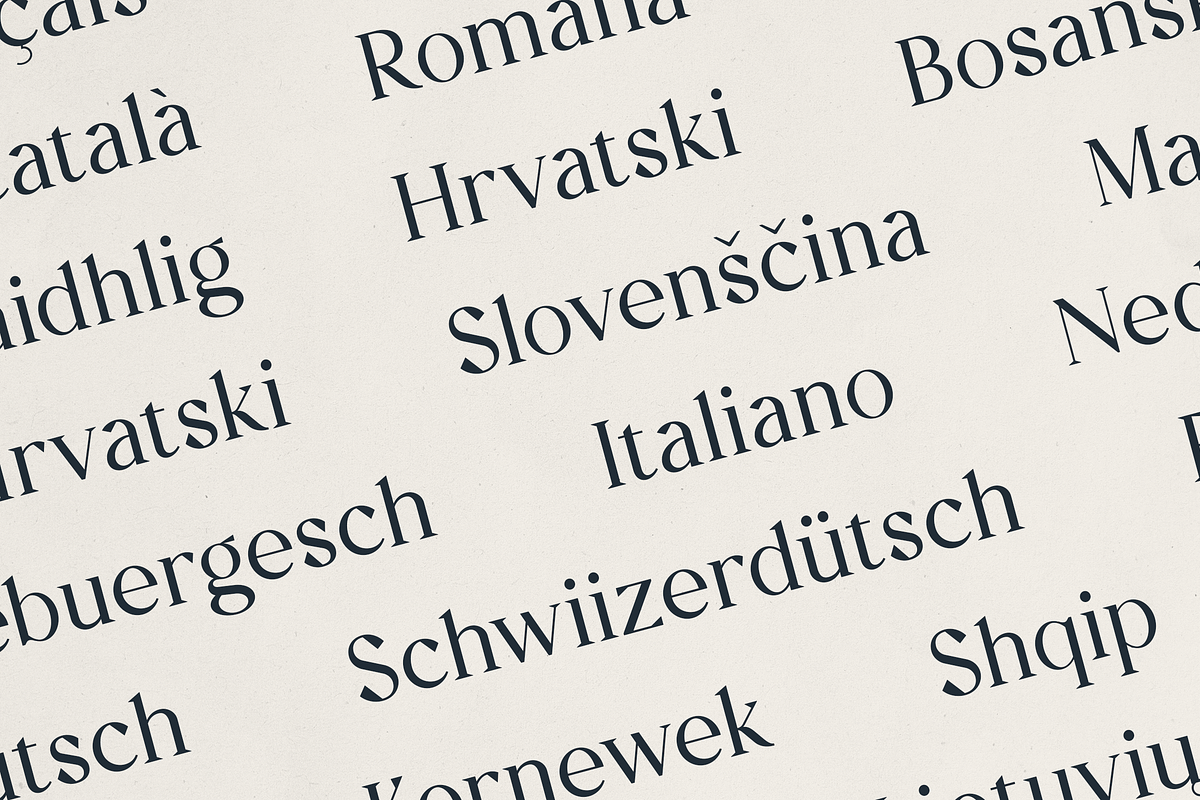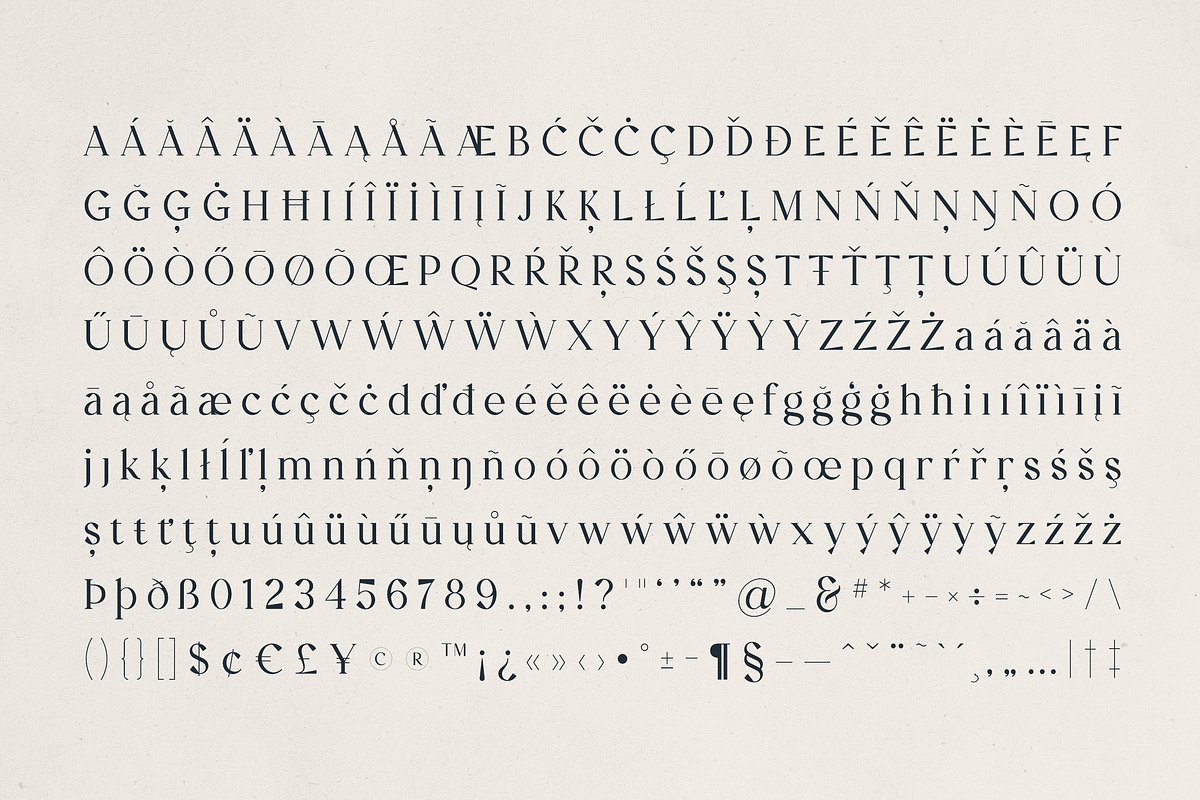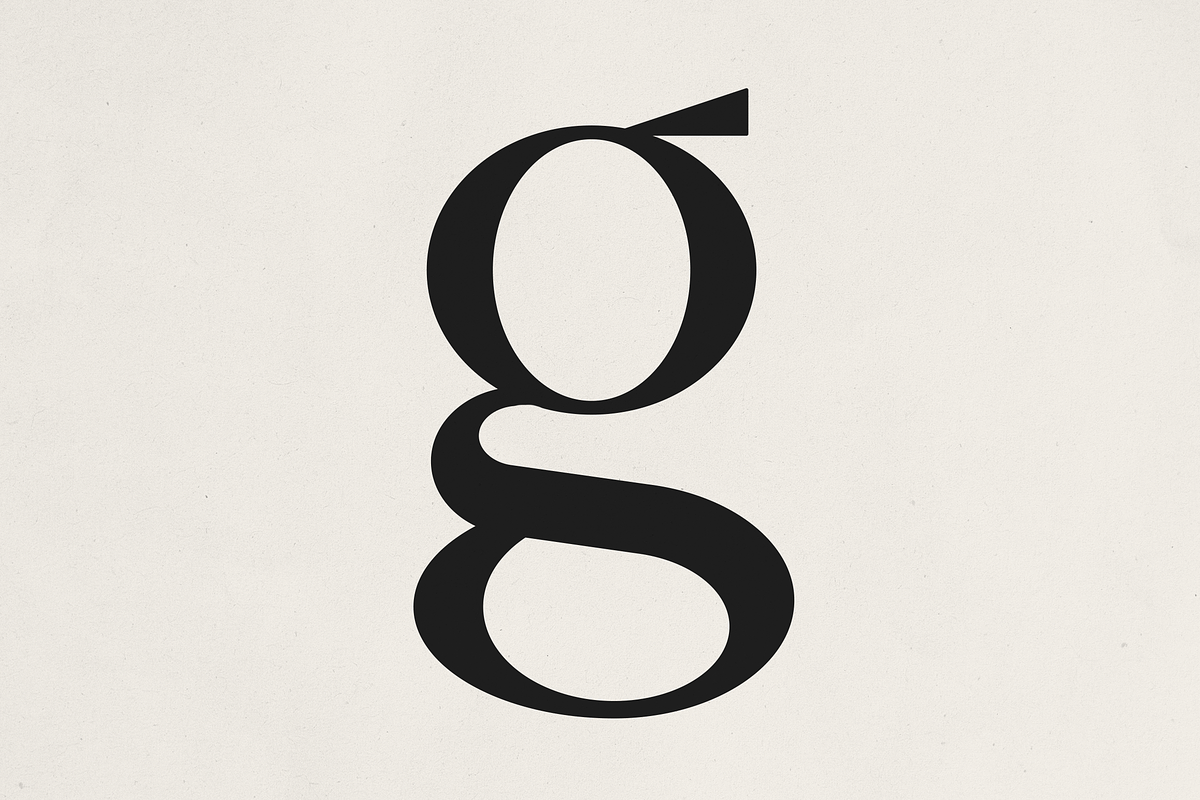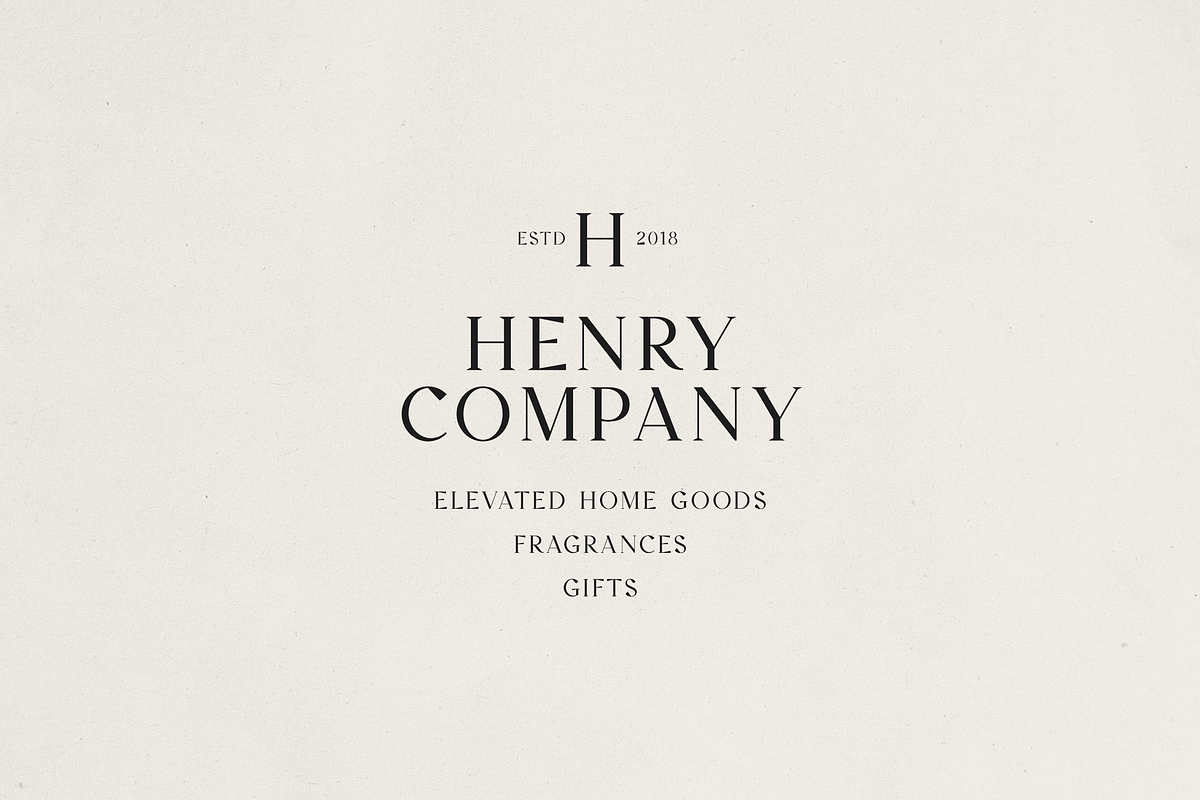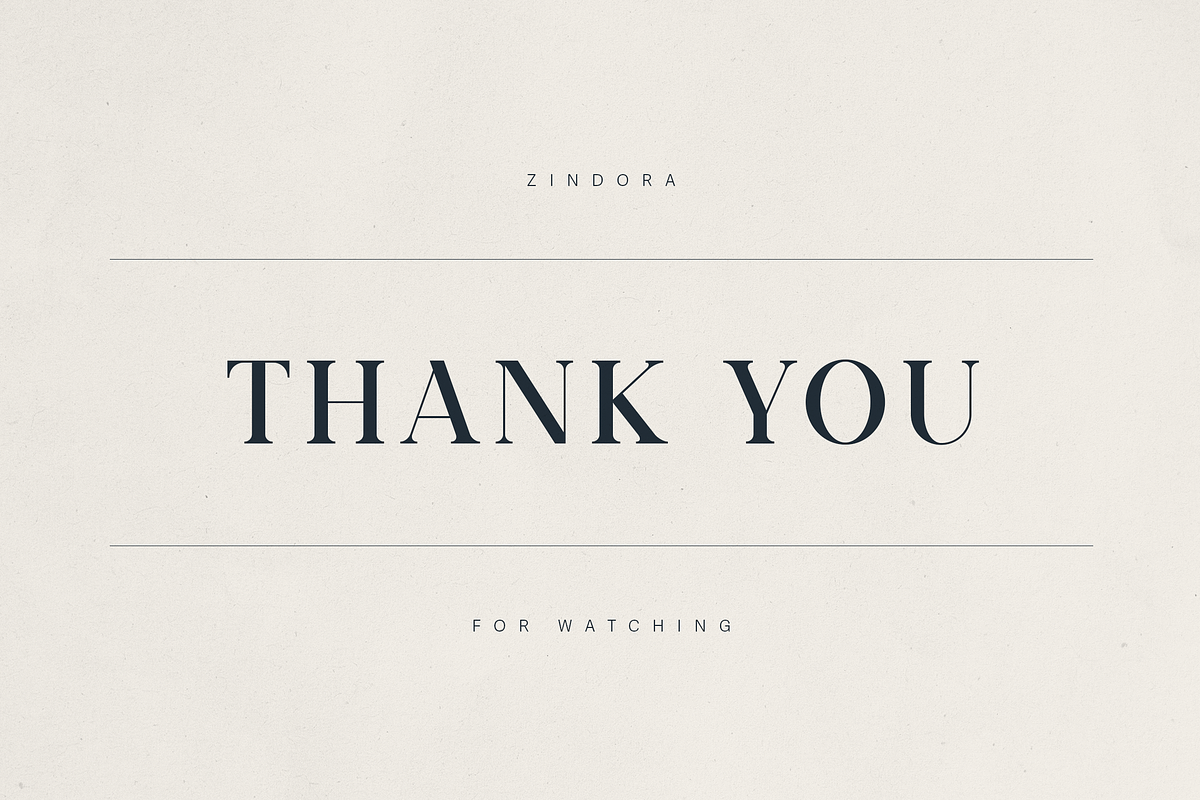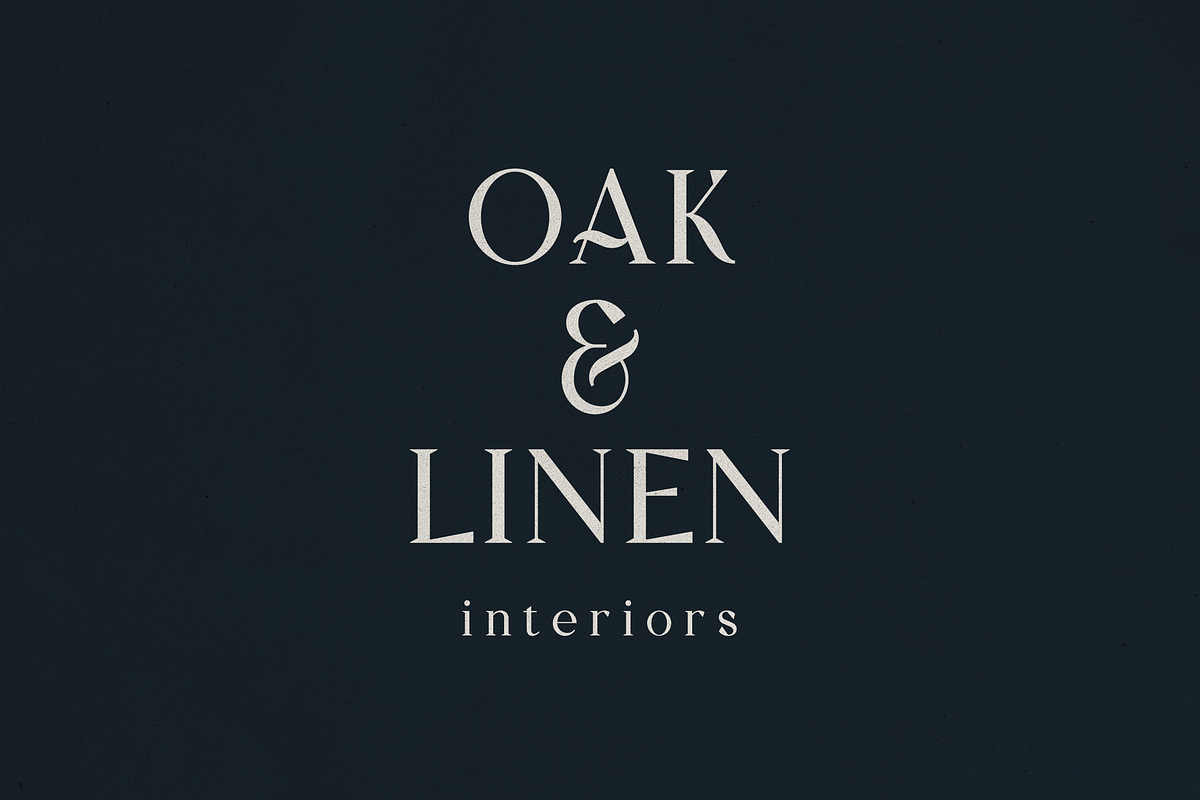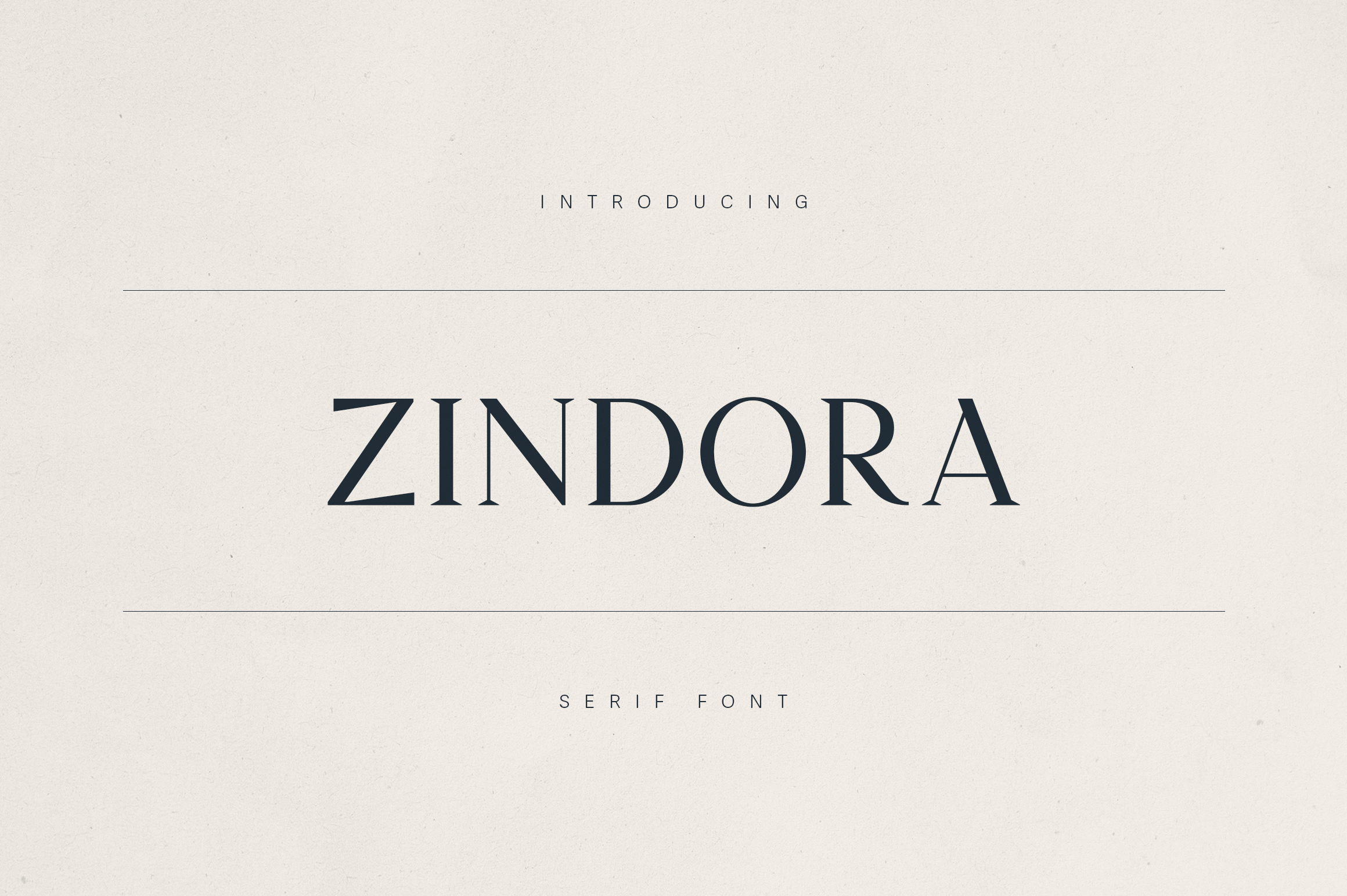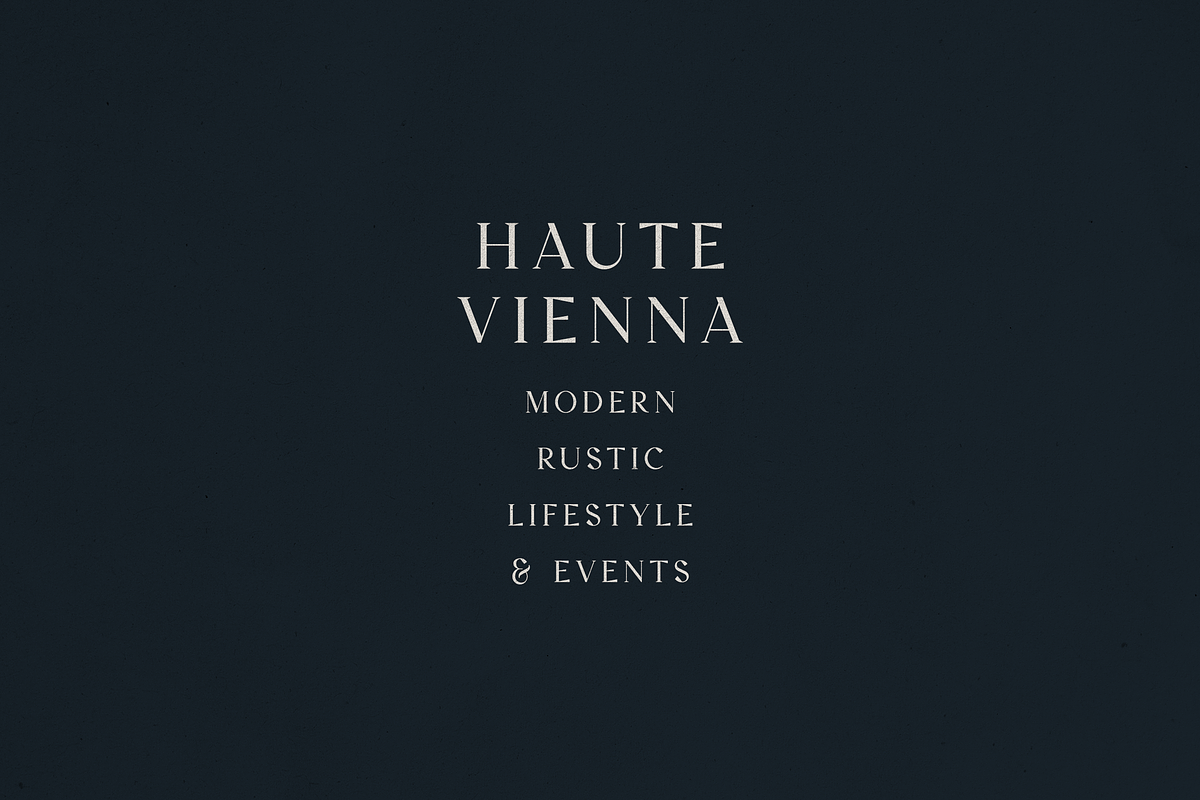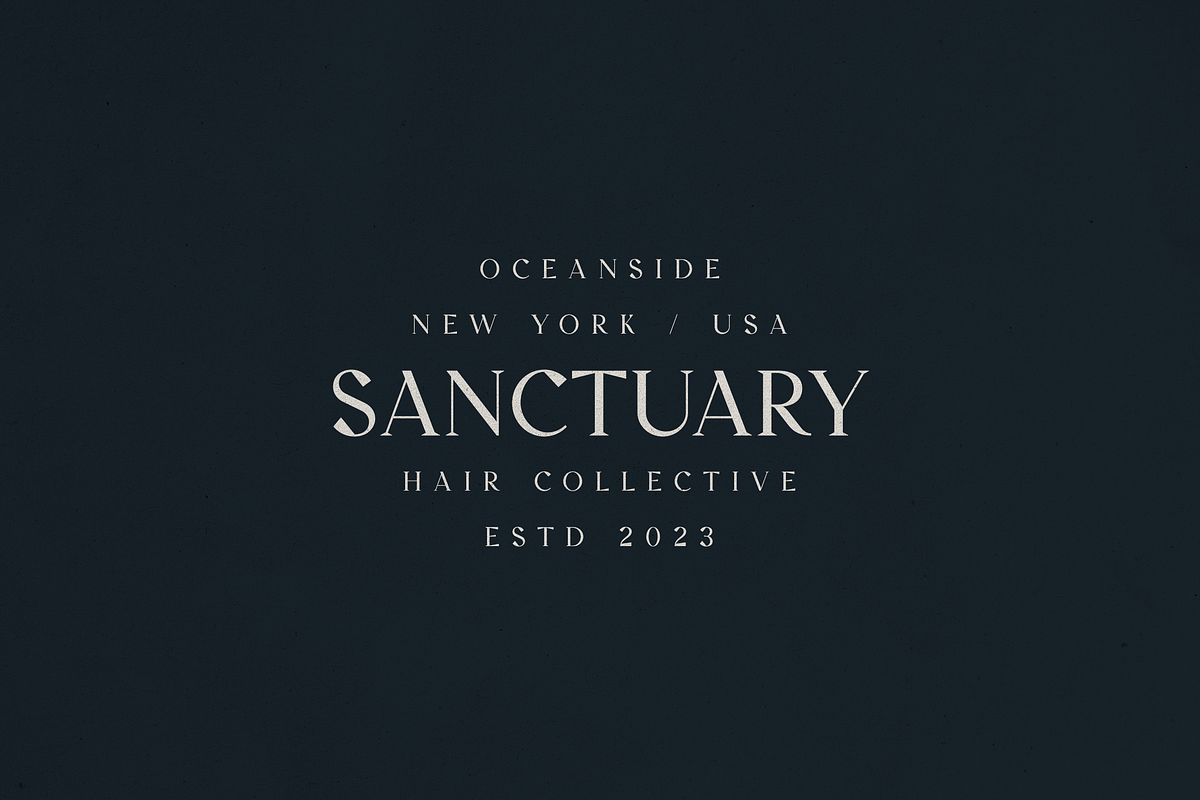
Zindora - Modern Classic Serif Font
ZINDORA – A Modern Classic Serif Font
Introducing ZINDORA, a high-contrast serif font that beautifully blends refined elegance with contemporary minimalism. With its graceful curves, sharp serifs, and editorial flair, Zindora is designed to elevate branding, packaging, logos, invitations, and editorial layouts with timeless sophistication.
- Luxury Branding & Identity Design
- Boutique Hotels, Floral Shops, Art Galleries
- Editorial Design, Lookbooks, Magazines
- Wedding Stationery & Invitations
- Social Media Graphics & Packaging
What You’ll Love About ZINDORA:
- Elegant Serif with Character: Balanced between classic and contemporary, with stunning details
- Supports 90+ Languages: Fully multilingual, ready to support global design work.
- Full Character Set: Includes uppercase, lowercase, numbers, punctuation, symbols, and currency glyphs.
Zindora doesn’t whisper, it speaks with elegance. Add a touch of heritage and a sense of modern luxury to your next project.